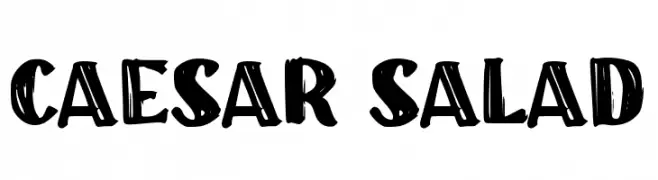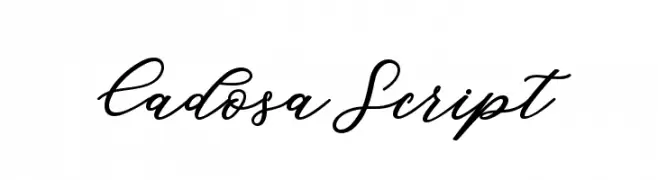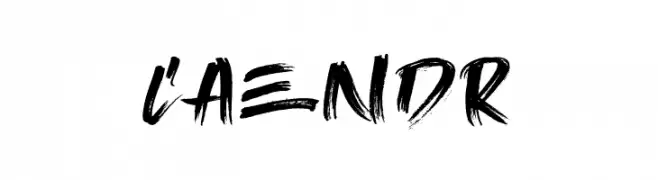
A bold, hand-drawn font with an artistic and playful style.
A rustic, woodblock-inspired font with an organic and textured appearance.
An elegant script font with fluid, connected strokes and a handwritten style.
A playful, hand-drawn font with irregular strokes and a lively appearance.
An elegant and modern serif font with decorative elements and balanced proportions.
A bold, dynamic brush script font with expressive strokes and artistic flair.
A bold, hand-drawn font with an ancient Roman inscription style.
A bold, playful font with a hand-drawn, vintage style.
A bold, hand-painted style font with a playful and dynamic appearance.